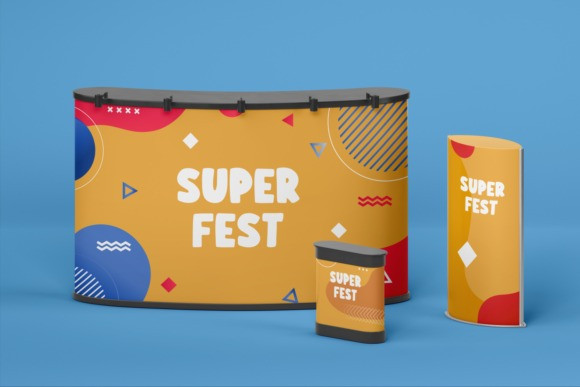
The Tebal Font
The Tebal Display Font is a cool, playful and adaptable display font. It embodies joy and authenticity and is the perfect choice for any children activity or school project.